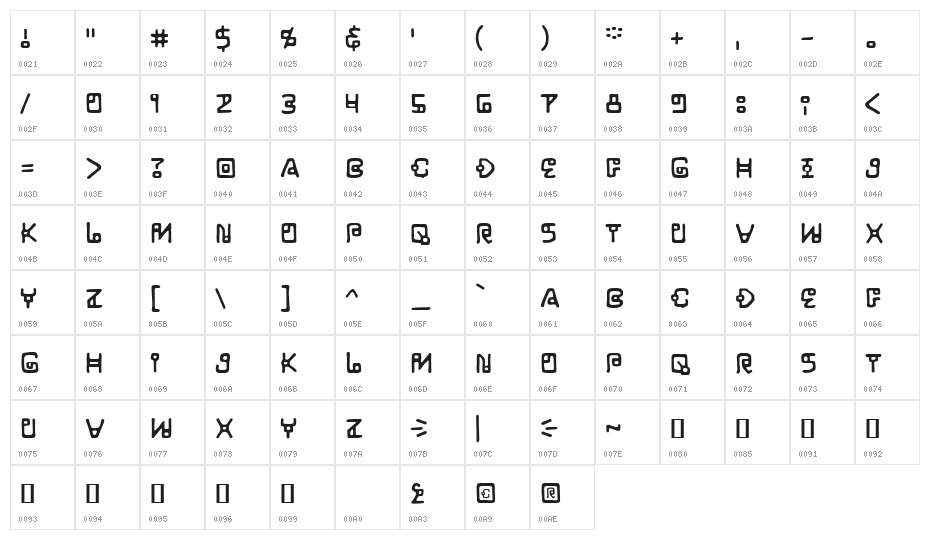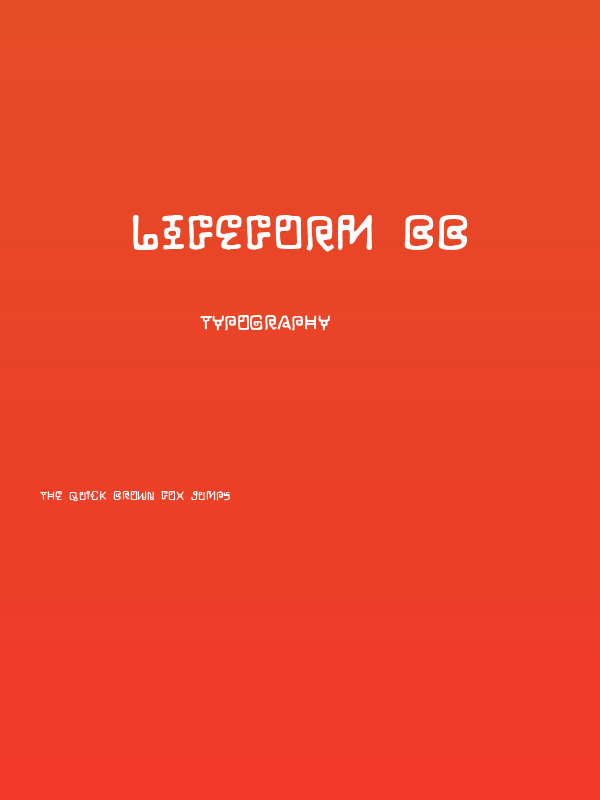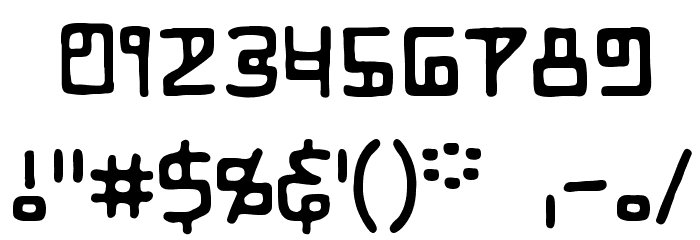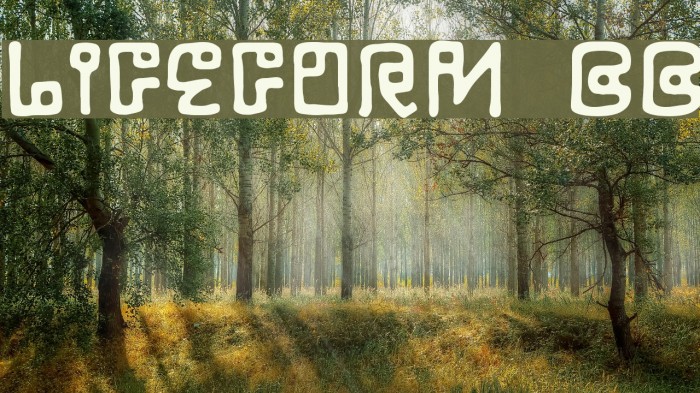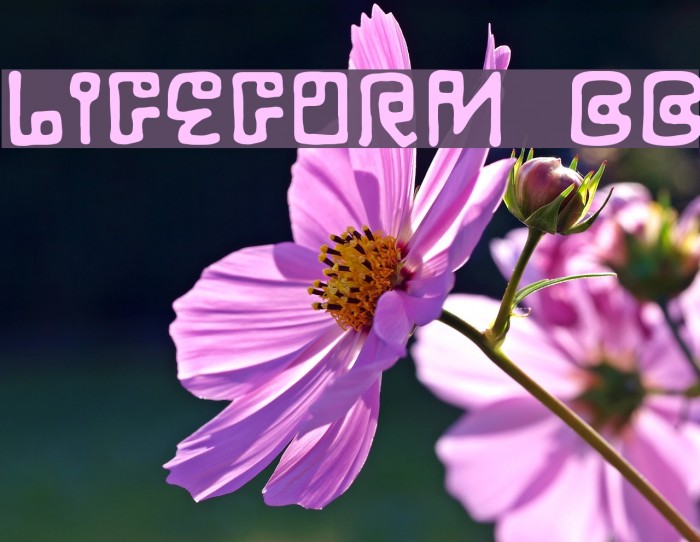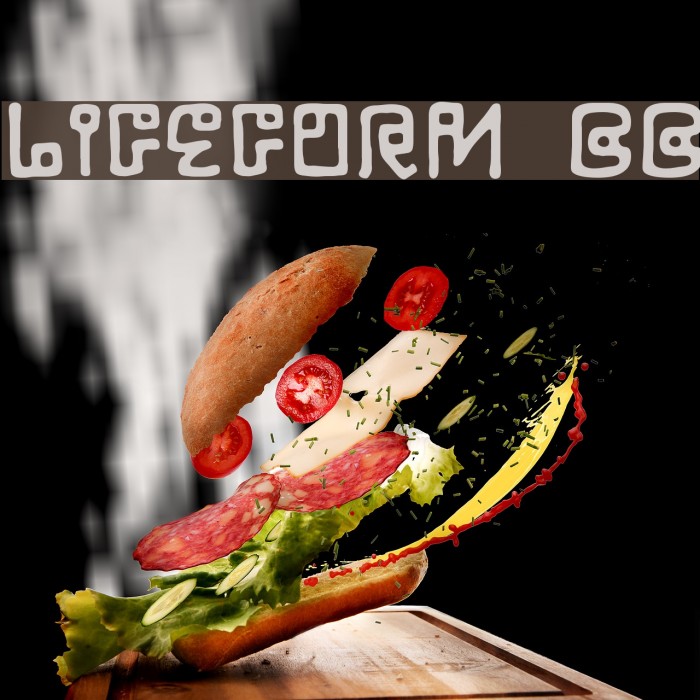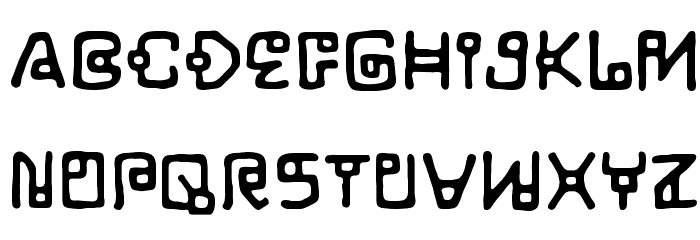
LifeForm BB Font
LifeForm BB Description
This font features a bold, playful design with a unique, organic feel. The characters are rounded and slightly irregular, giving them a hand-drawn appearance. The uppercase and lowercase letters maintain a consistent style, with thick strokes and a whimsical touch. Numbers and special characters are equally stylized, fitting seamlessly into the overall aesthetic. The font's distinctiveness makes it stand out, ideal for creative projects that require a fun and engaging look.
| Overall Style | Playful, Organic |
| Proposed Projects | Perfect for children's books, playful branding, posters, and creative digital content. |